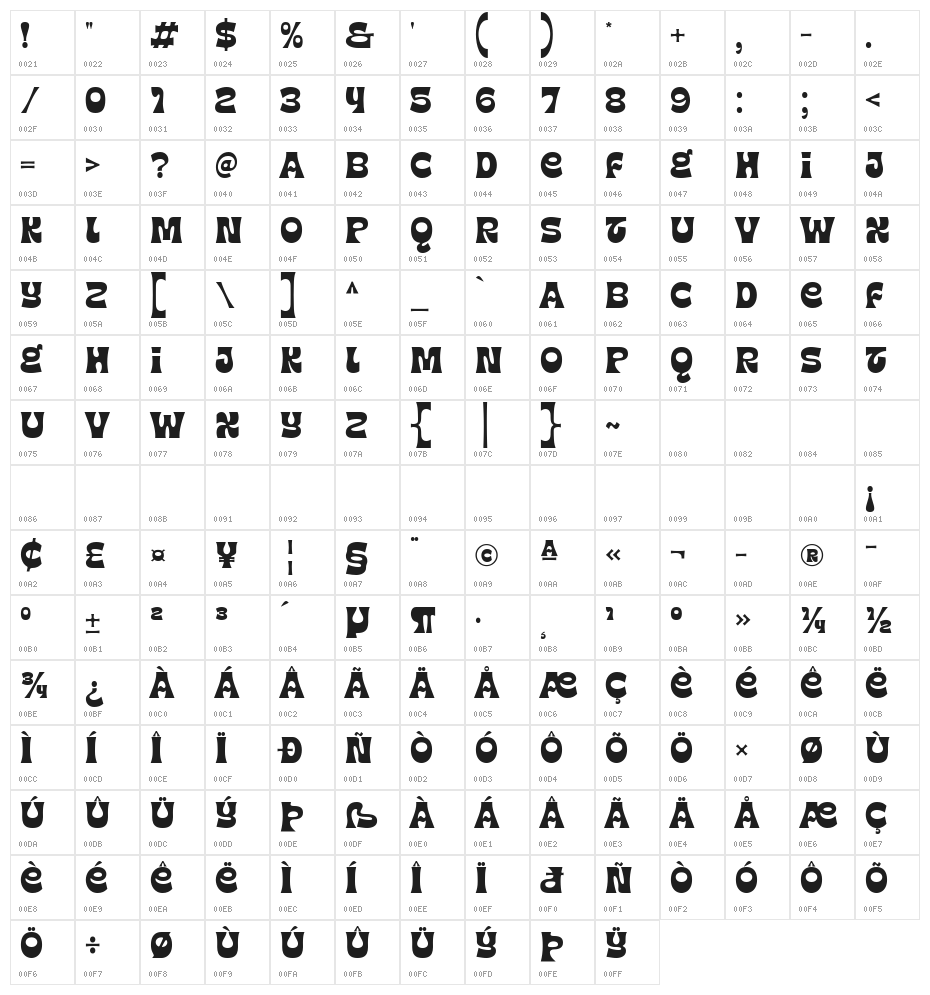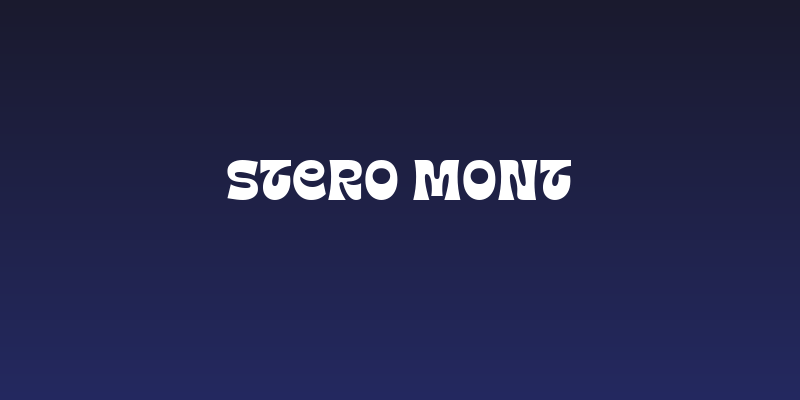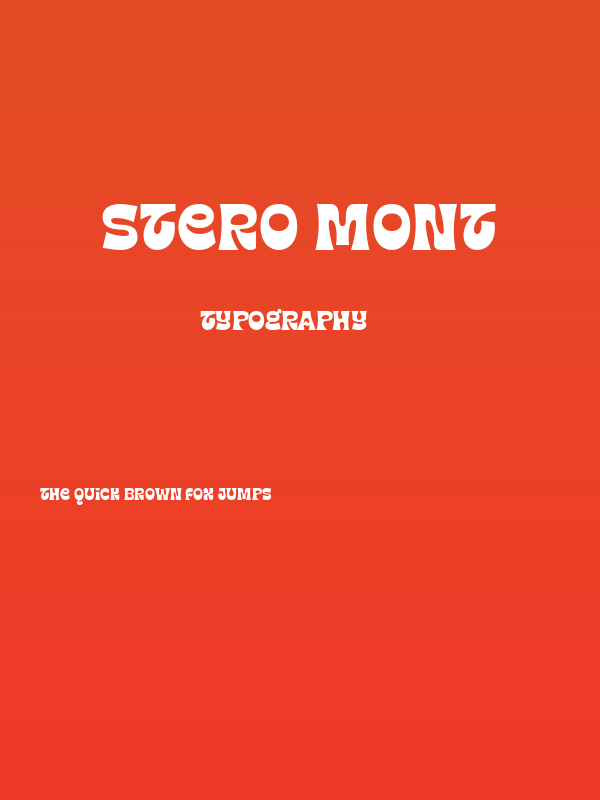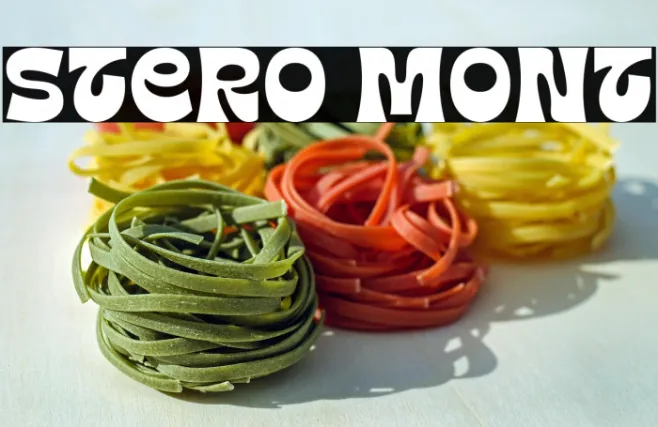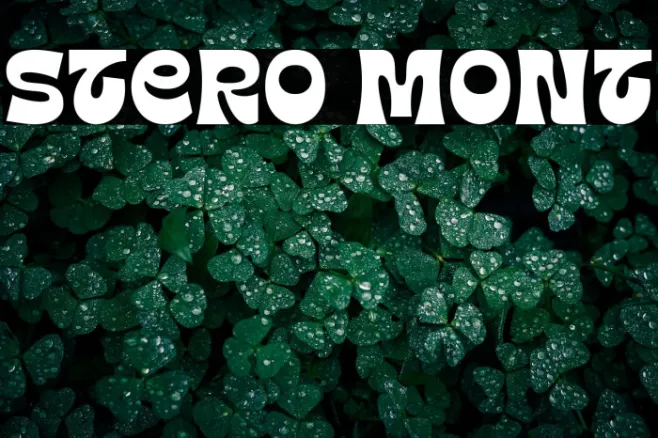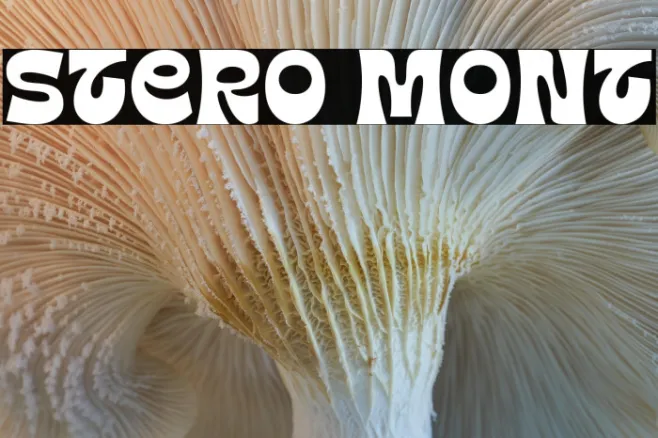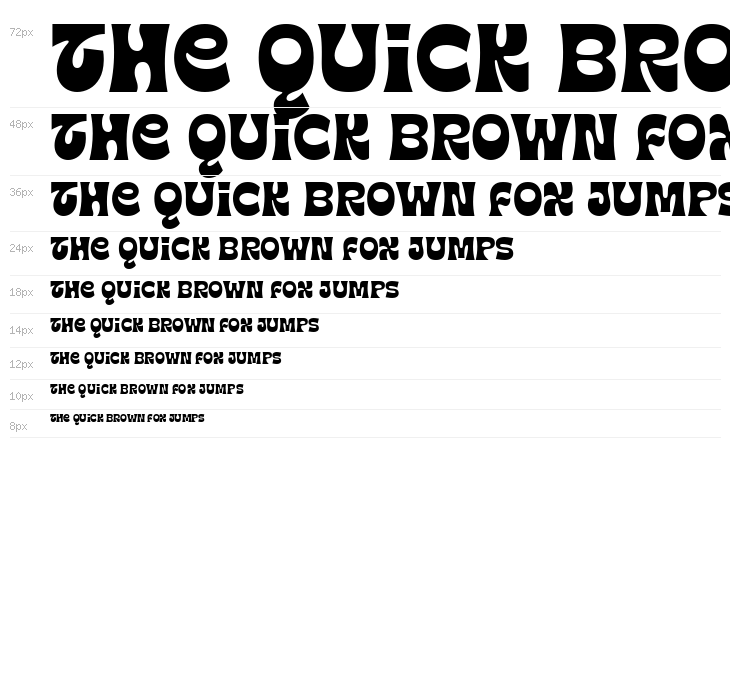
Stero Mont Font
Stero Mont Description
A bold, decorative font with a playful and retro style, featuring thick strokes and unique character shapes.
| Overall Style | Retro, Playful |
| Proposed Projects | Posters, album covers, branding. |